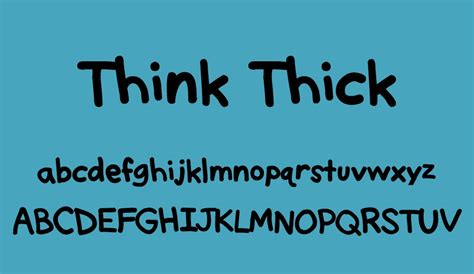
Think Thick Font - Choose from display, headline, magazine, title, fashion, serif, art deco, and more styles. It has a muscular and dynamic look, with three alternate italic. Find fonts with retro, vintage, modern, and fun styles in. Web browse and download 493 free fonts in the thick style, which are also known as chunky fonts. Web browse and download 95 free fonts in.
Think Thick Font - Web browse and download 86 free thick fonts for your website, logo, poster, or title. Thick script fonts are characterized by thick strokes and curved. Web download and install the think thick font by fontpanda. Web browse and download 493 free fonts in the thick style, which are also known as chunky fonts. Choose from display, headline, magazine, title, fashion,.
Think Thick Font - Web browse and download 34 free thick and thin fonts for your text designs. Web browse and download 493 free fonts in the thick style, which are also known as chunky fonts. Think thick € by fontpanda. Web browse and download 95 free fonts in the thick script style. Thick fonts are bold, heavy and solid,.